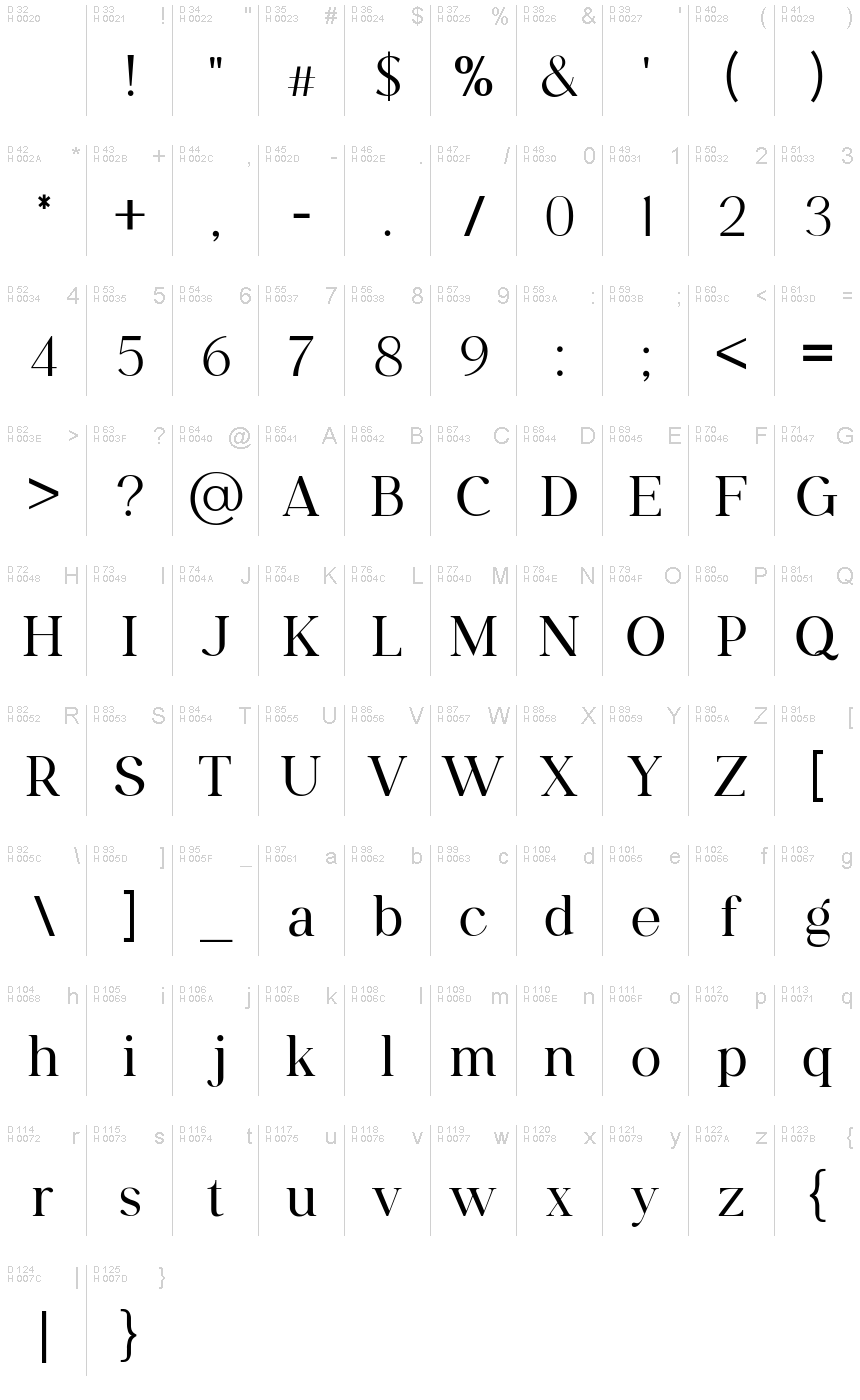
Paperboard
Paperboard, crafted by UI Creative, exudes a timeless elegance with its refined serif style. The clean, sophisticated lines and balanced proportions create a visually striking presence, lending an air of understated luxury to any design. This font's versatility shines through its ability to seamlessly transition between formal and informal settings, making it a versatile choice for a wide range of projects.
Paperboard's distinct characteristics make it an excellent selection for editorial design, corporate communications, and high-end branding. Its classic aesthetic lends itself well to the creation of sophisticated typographic hierarchies, allowing designers to establish a sense of prestige and authority. Whether used for captivating headlines, impactful body text, or elegant display purposes, Paperboard consistently delivers a refined and polished aesthetic.